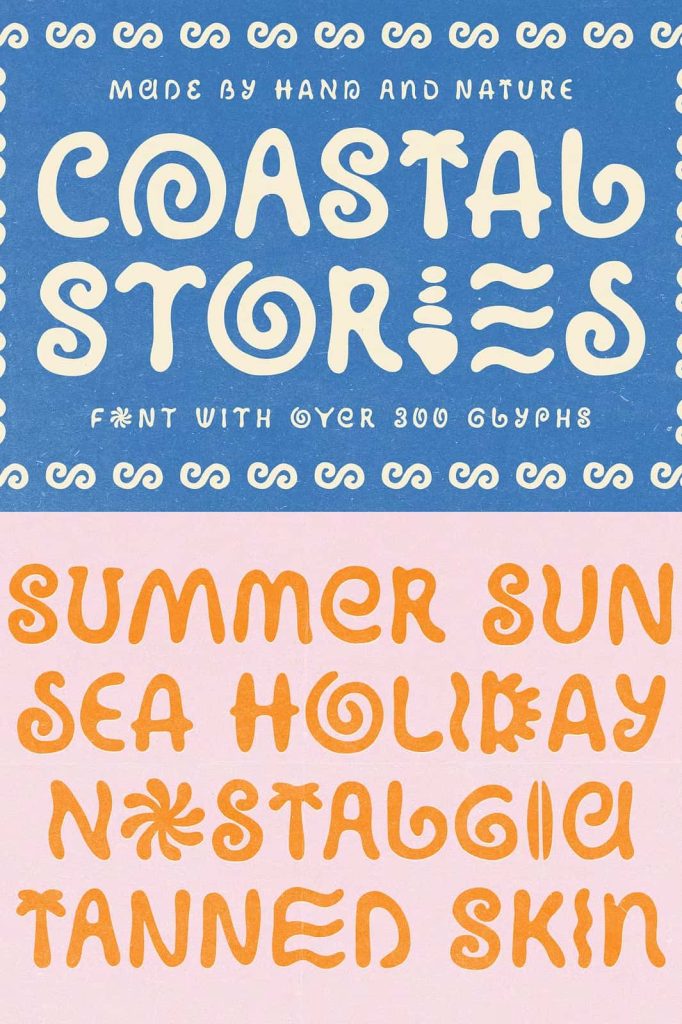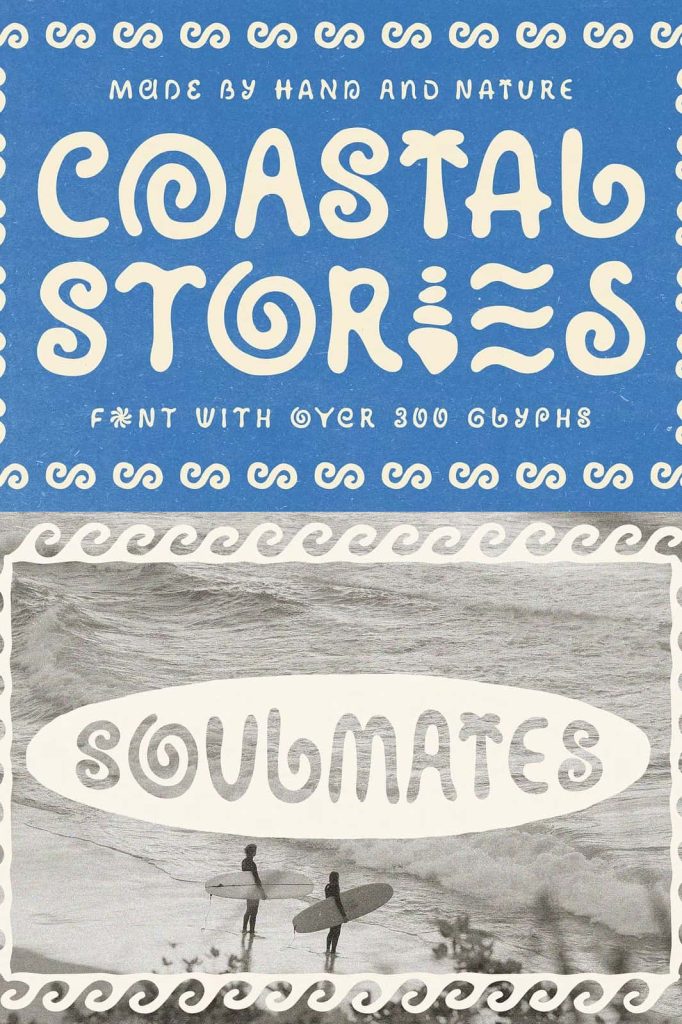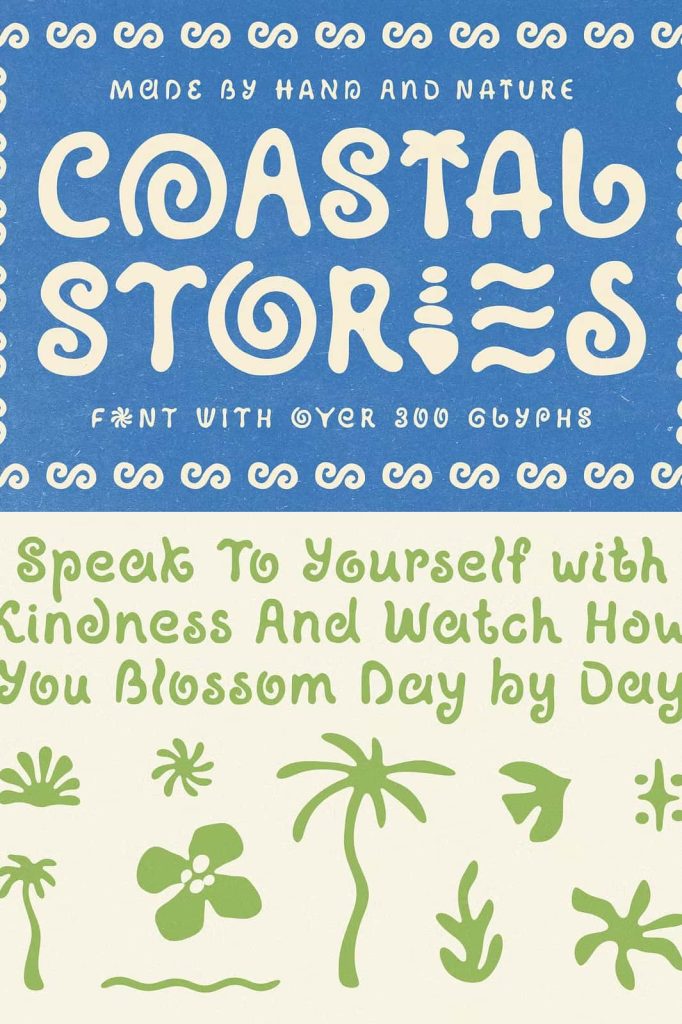
The name feels sunny and coastal, but this font isn’t only about summer. It carries a retro soul that works beautifully in modern branding. Picture it on merch — bold t-shirts, beach caps, surfboards, tote bags. Imagine it shaping the look of a wellness brand, on packaging for skincare, yoga studios, juice bars, or even café menus. It’s the kind of type you’ll also see on event posters, vinyl covers, bold magazine spreads, festival graphics, coffee cups, or social media intros.